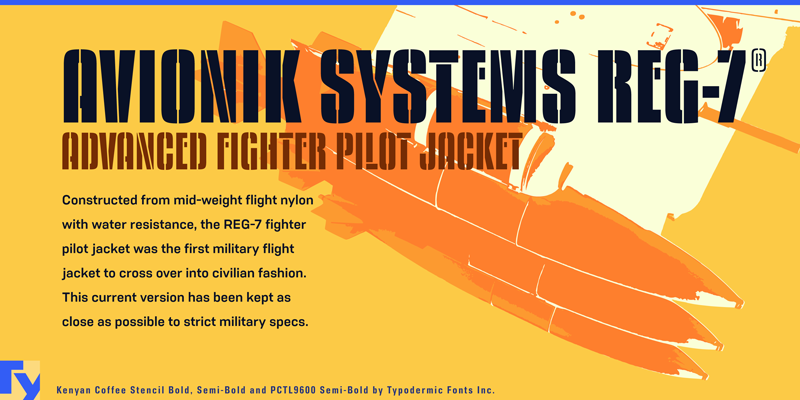
Kenyan Coffee Stencil a headliner based on the late 1990�s typeface by the same name. Kenyan Coffee has a hybrid industrial/deco style which is perfectly suited to stencilization. Almost all current Latin based languages are supported, including Vietnamese, Cyrillic languages and Greek. This font includes a license that allows free commercial use: sometimes referred to as a desktop license. This allows you to install the fonts on a computer and use them to create posters, web graphics, game graphics, t-shirts, videos, signs, logos and more. Read the license agreement for details. If you'd like to embed this font in an app, ebook, on the web or anything that's not covered by the desktop license agreement, visit the link below. You'll find distributors who offer different types of licenses or you can contact me for help. http://typodermicfonts.com/kenyan-coffee-stencil/ This free font is part of a larger font family. Check out the rest of the family through the link above. |